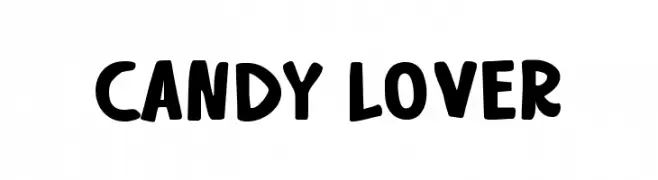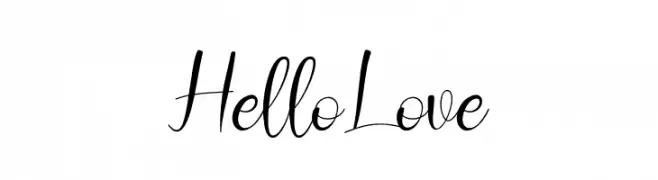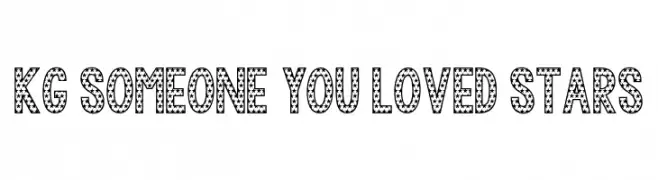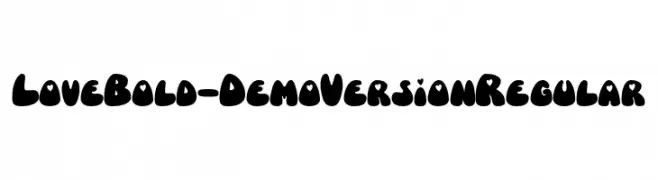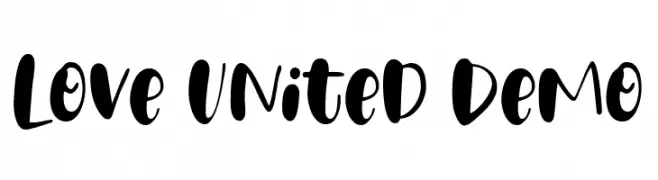
A whimsical script font with heart motifs and elegant cursive flow.
A playful, flowing script font with a handwritten style.
A graceful and elegant script font with flowing cursive letterforms.
( Fonts by Estuario Type )
A bold, playful handwritten font with smooth curves and rounded strokes.
( Fonts by Fontherapy | Kalifont Studio )
A playful, bold handwritten font with rounded edges and a whimsical style.
( Fonts by Scratchones )
A whimsical, heart-patterned decorative font with a playful and romantic style.
( Fonts by Kimberly Geswein )
A playful, dotted font with bold outlines and a decorative style.
( Fonts by Kimberly Geswein )
A bold, star-patterned decorative font with a playful style.
( Fonts by share font )
A decorative font with characters inside heart shapes, accented with floral details.
( Fonts by Nirmana Visual )
A bold, playful font with rounded characters and heart-shaped accents.